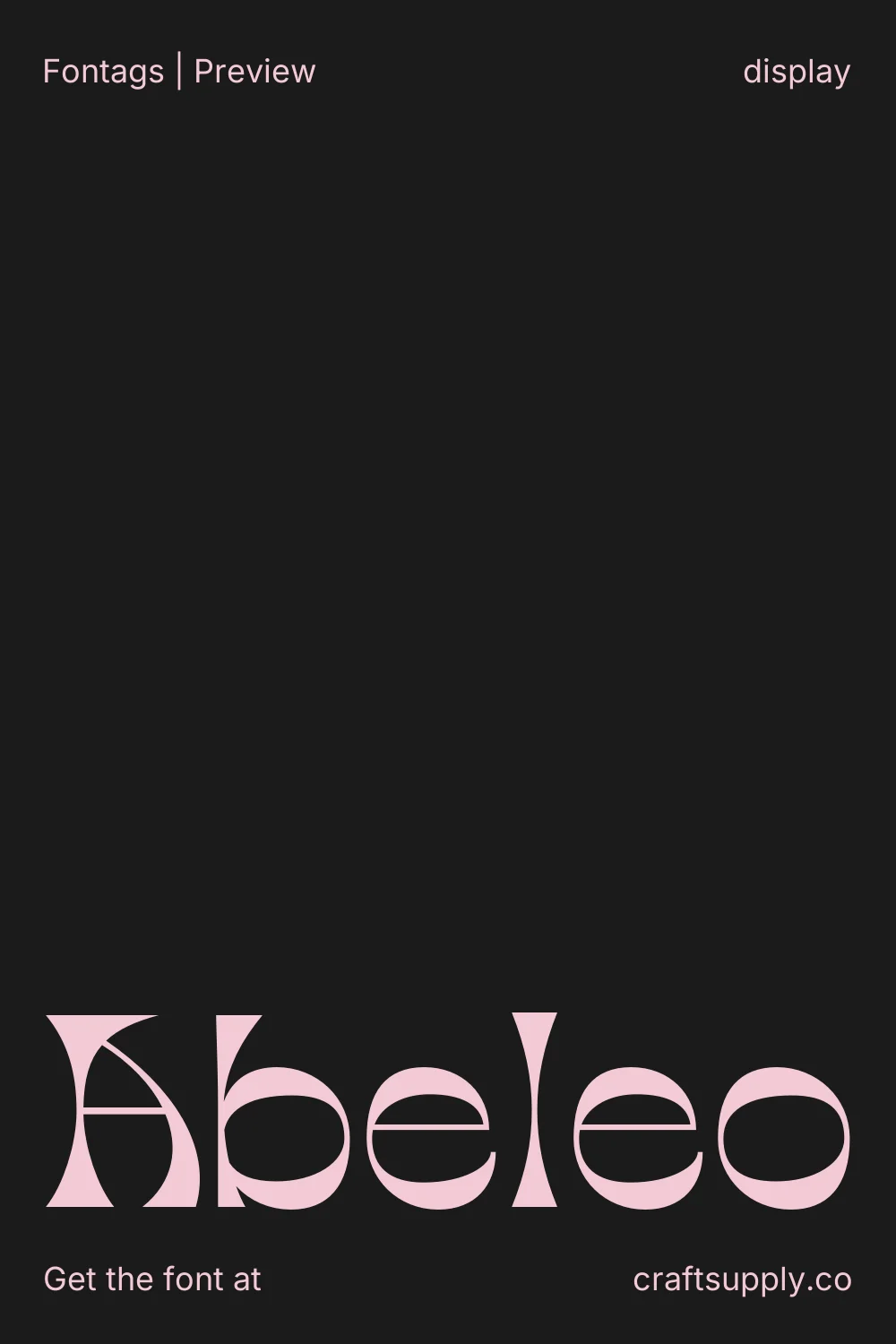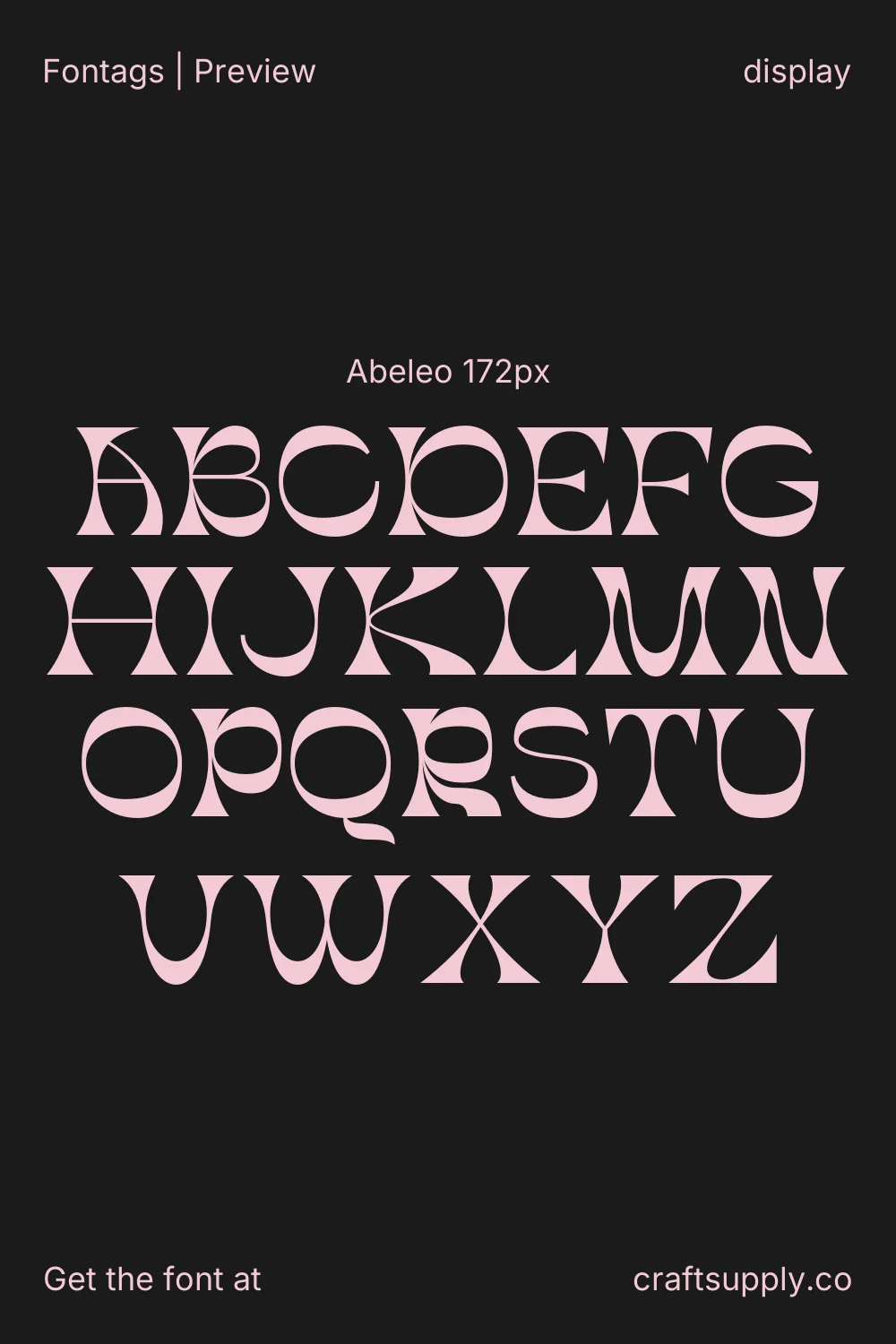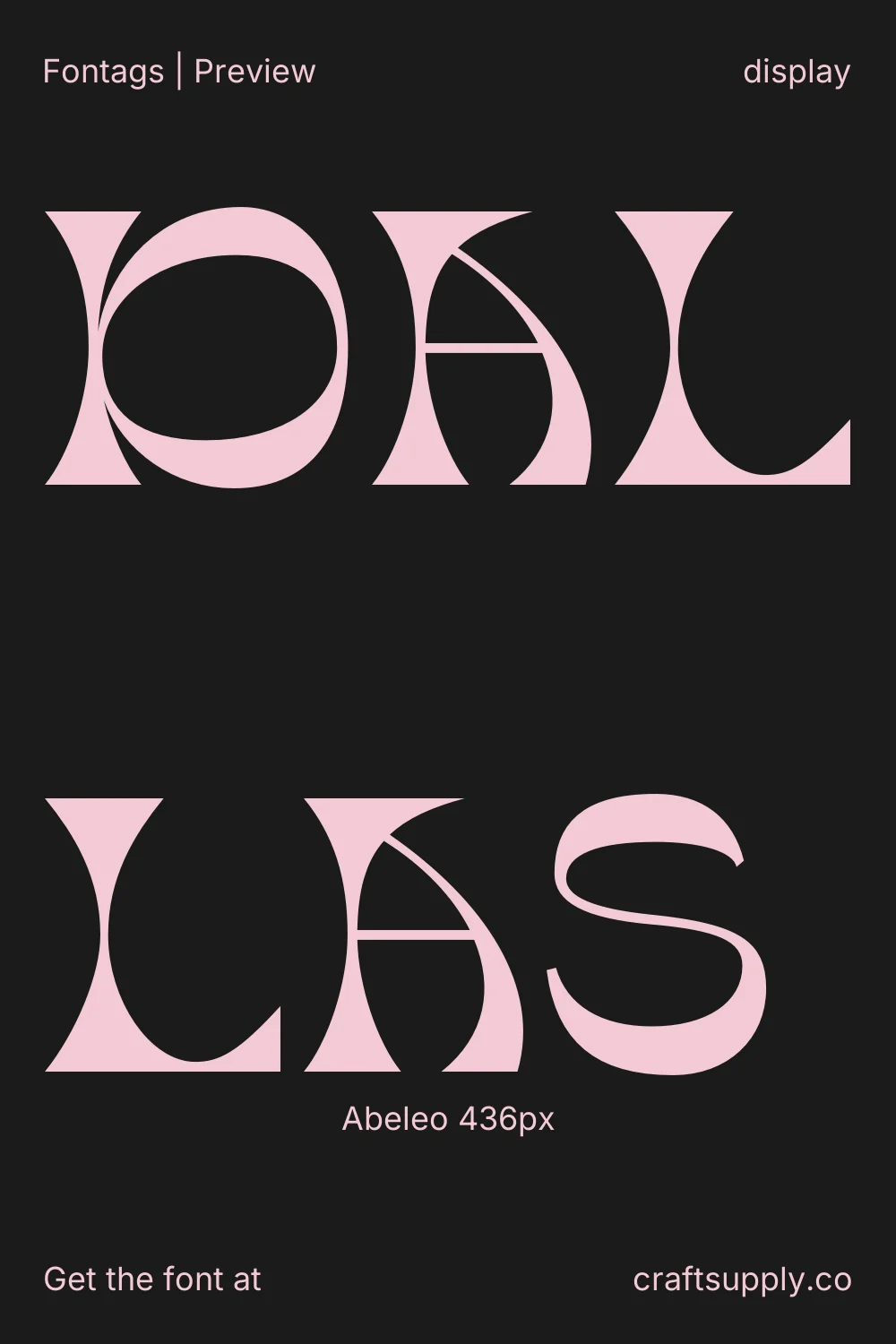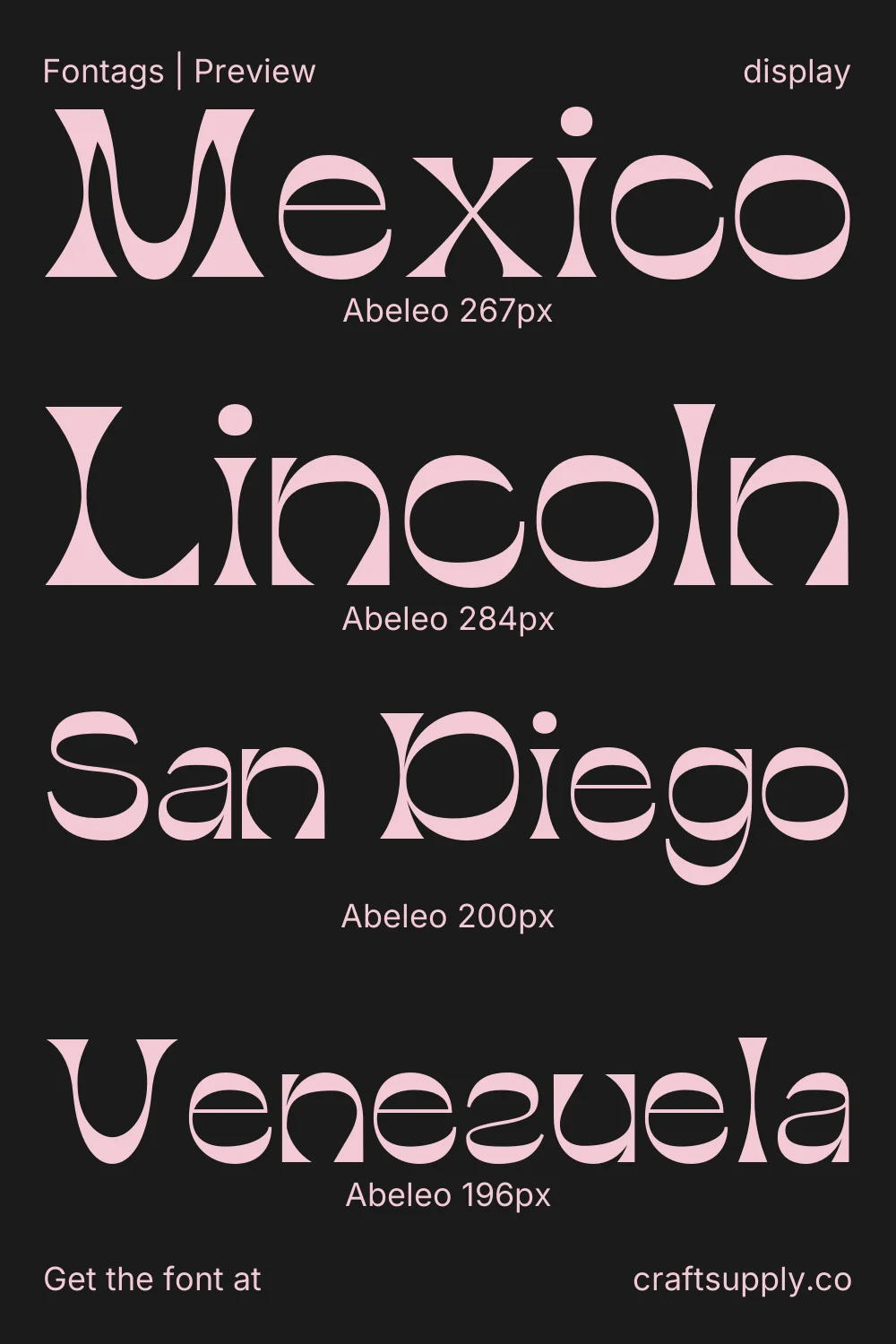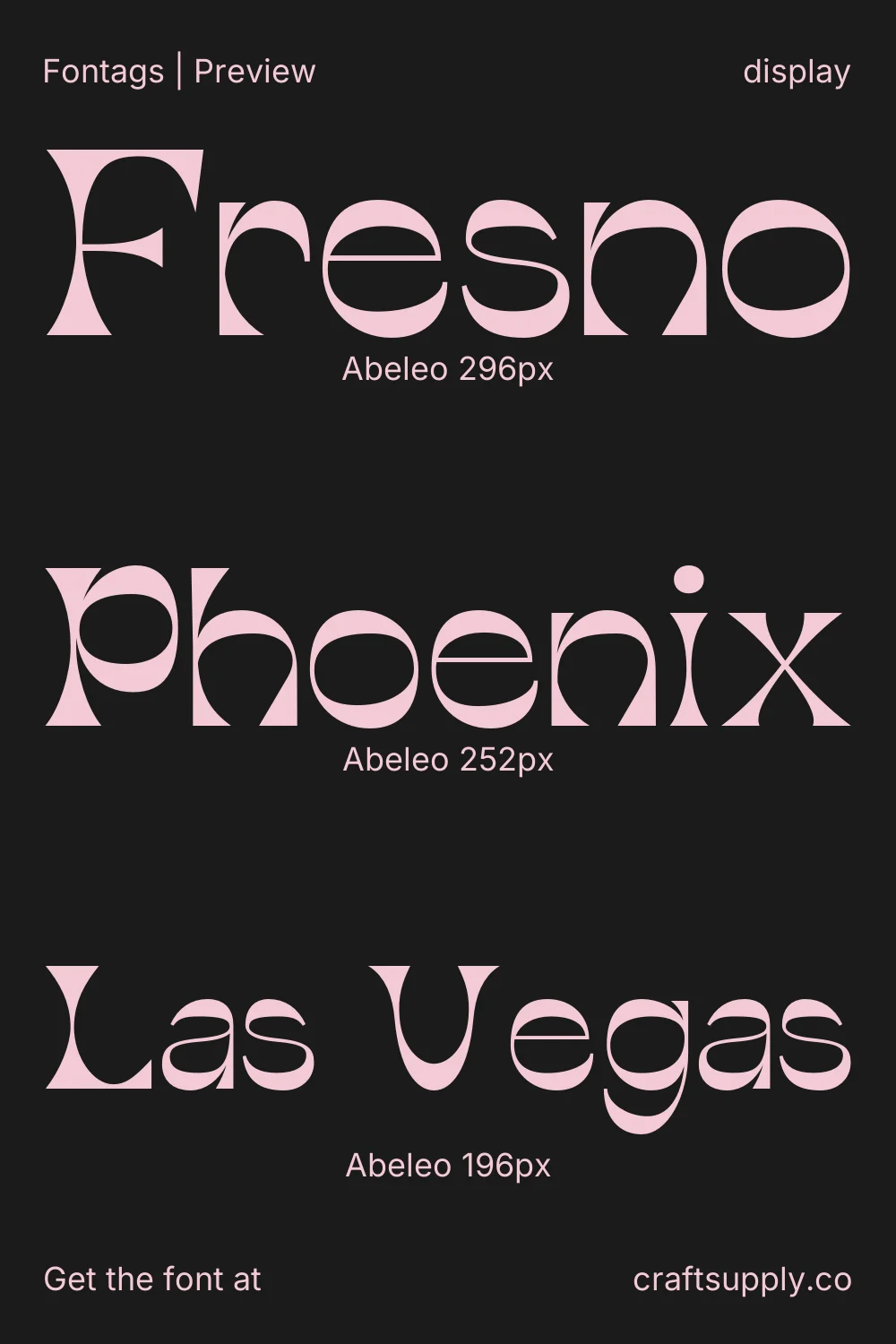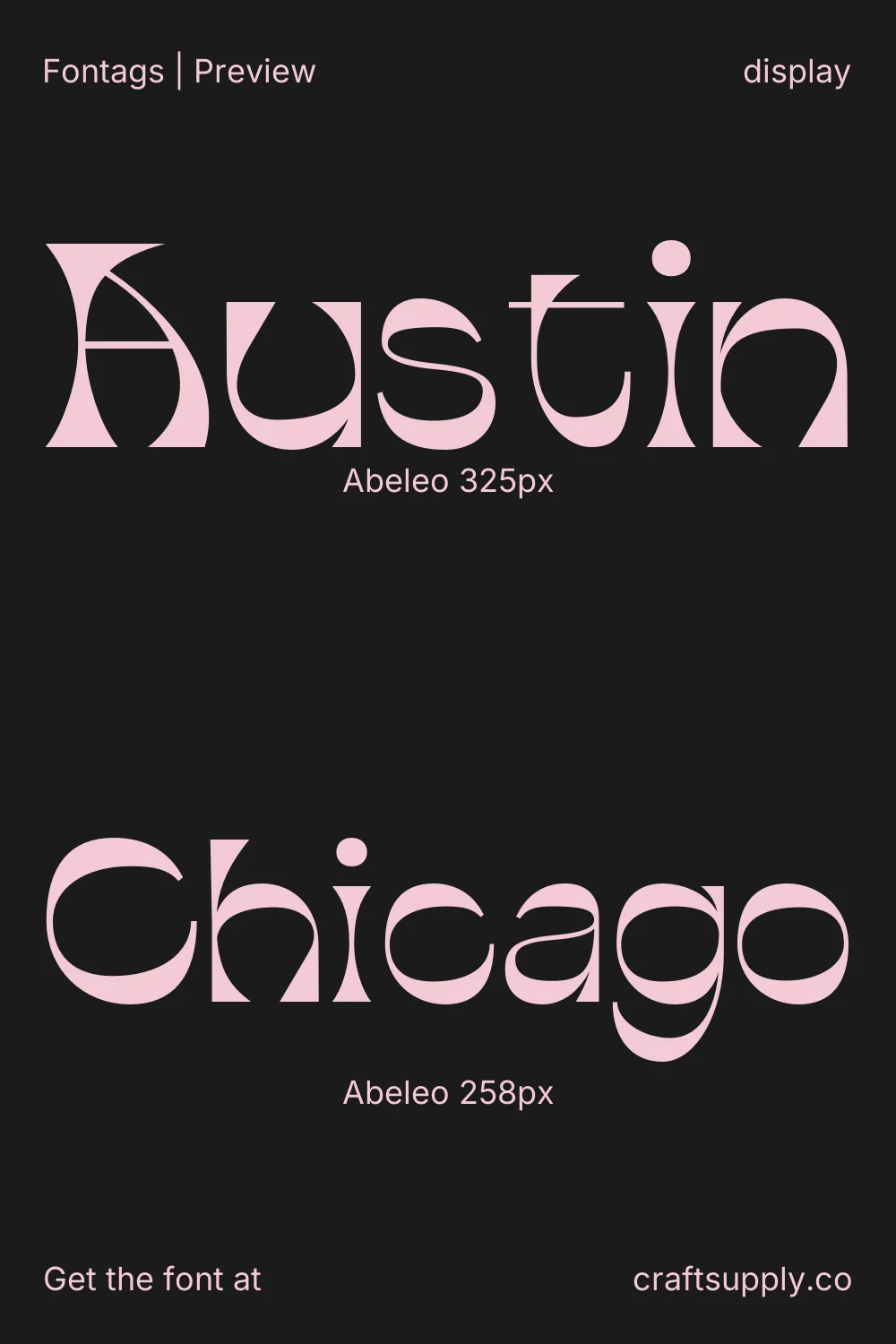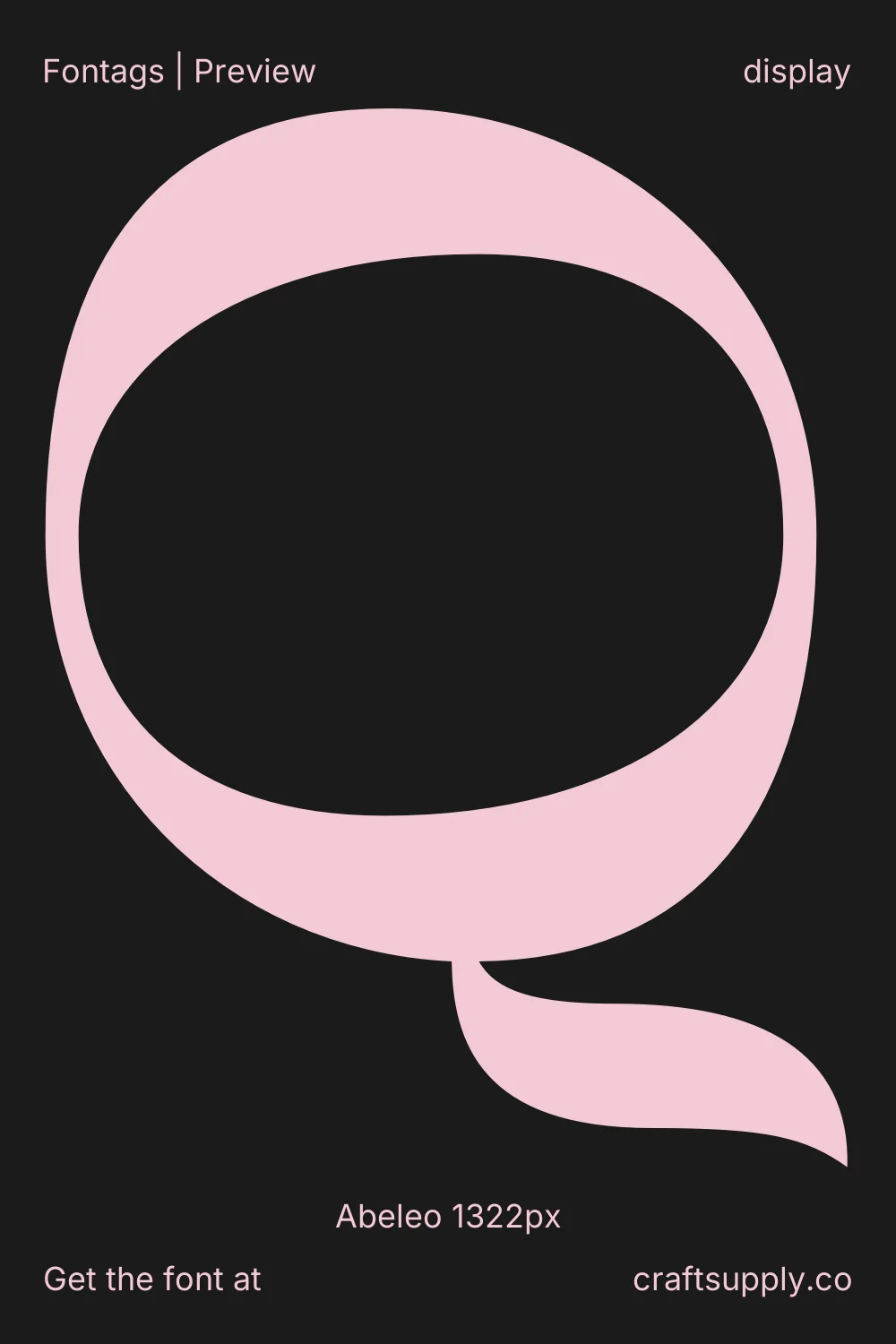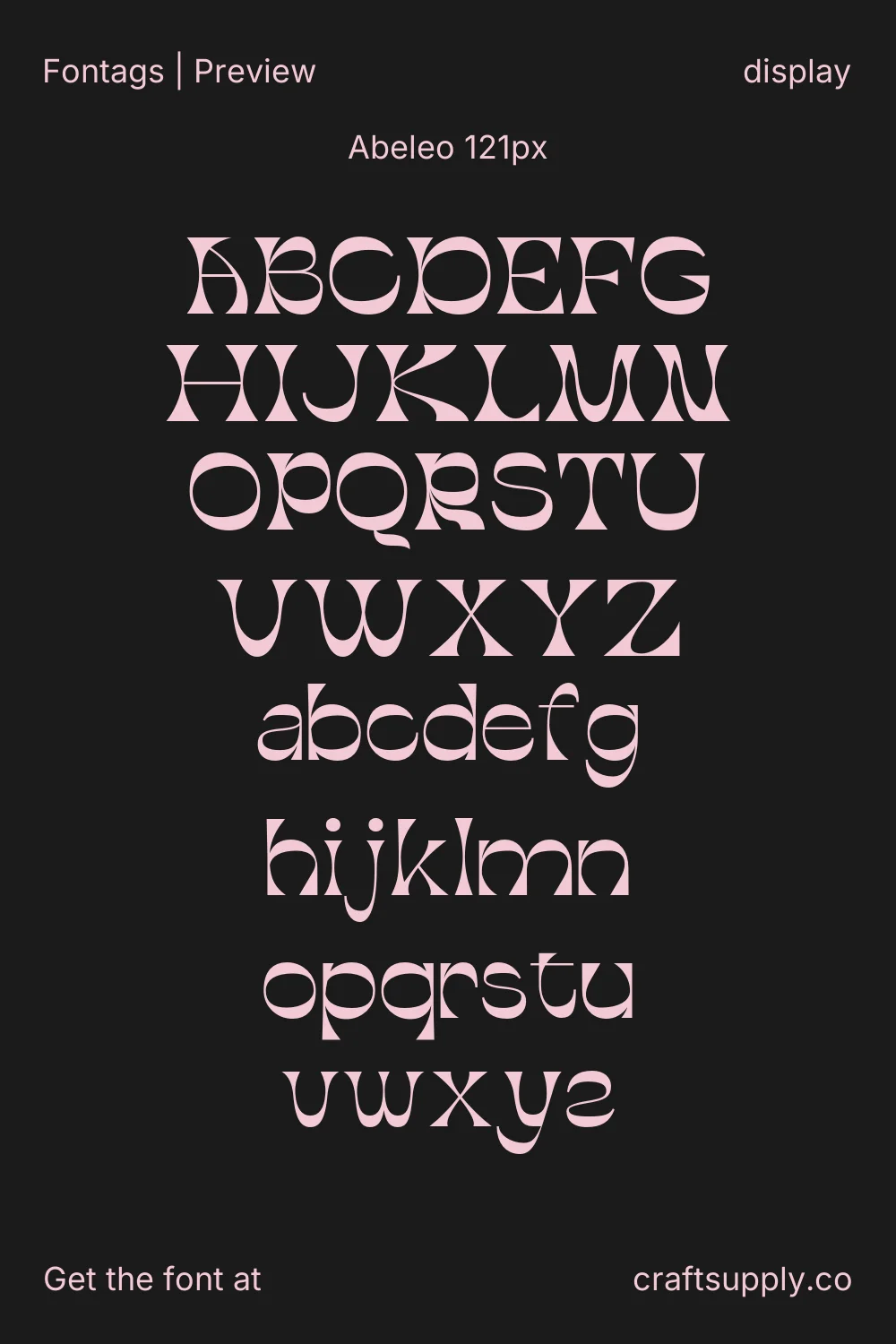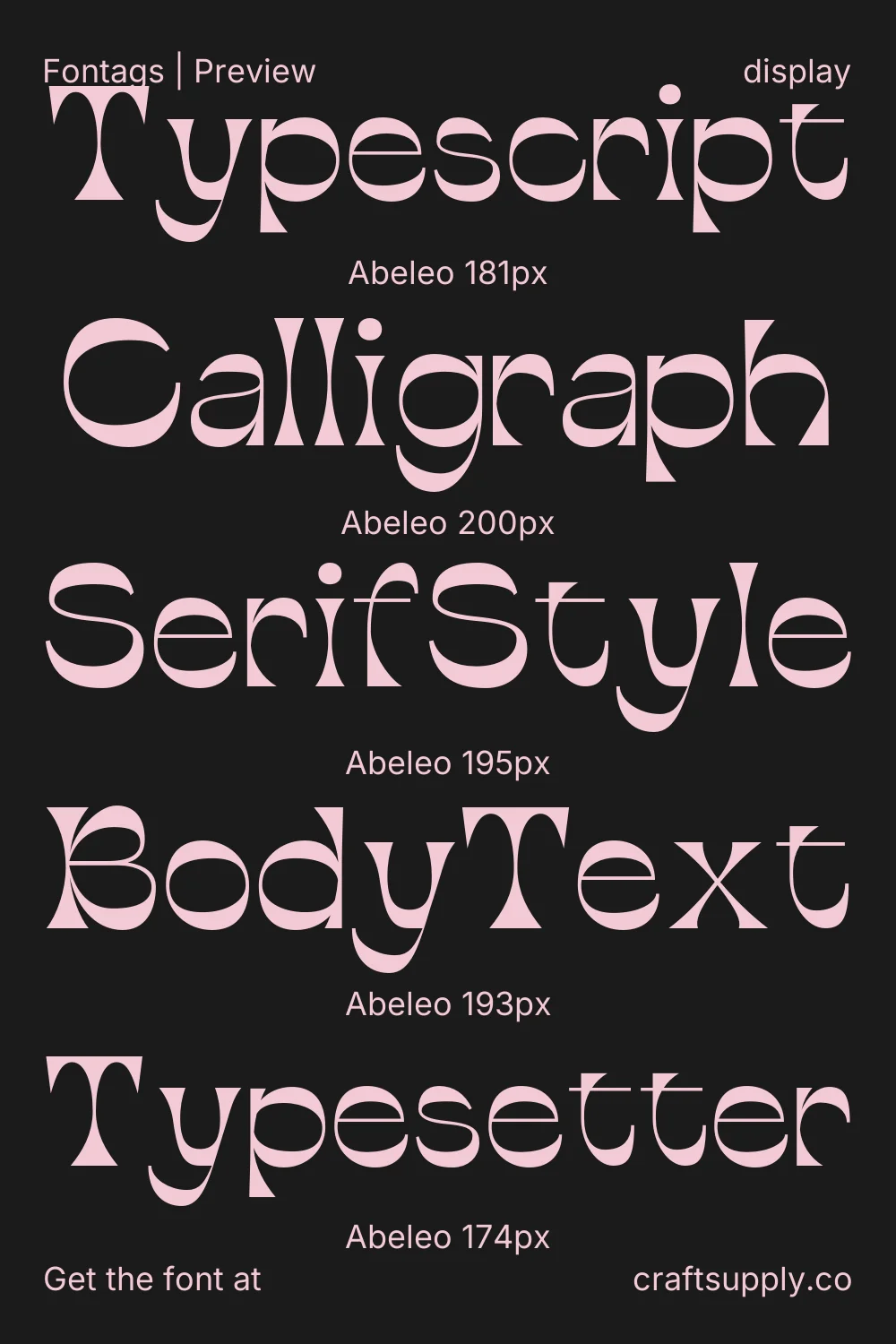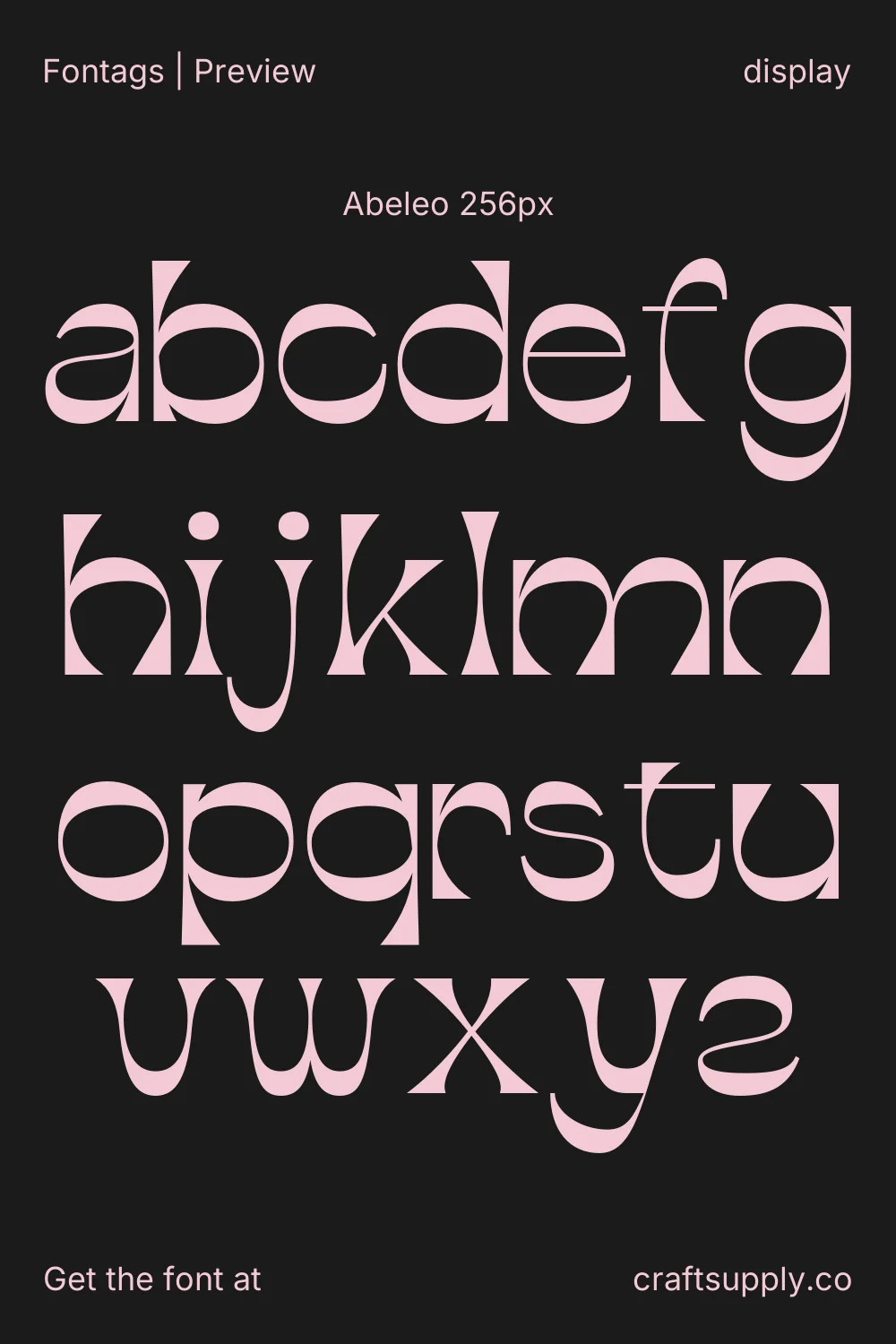
Abeleo
Abeleo is a funky display typeface with distinctive inverted contrast, offering a quirky and vibrant personality. Perfect for posters, branding, and digital graphics, it brings an energetic and unconventional charm to any design.